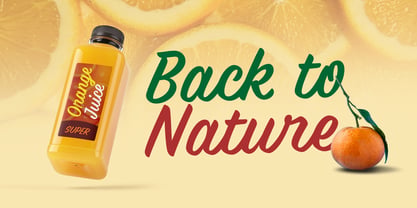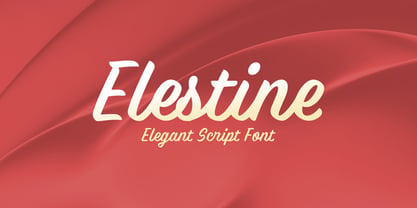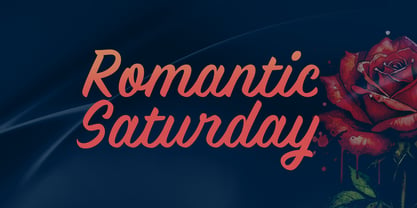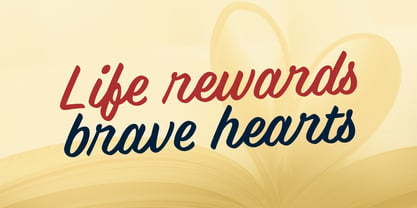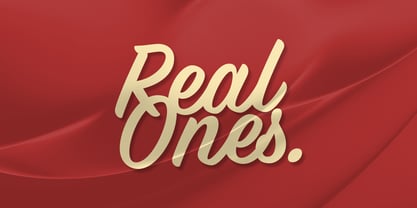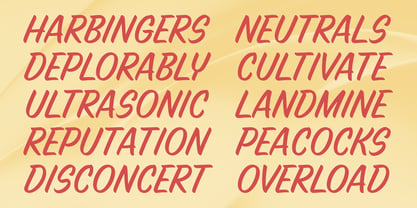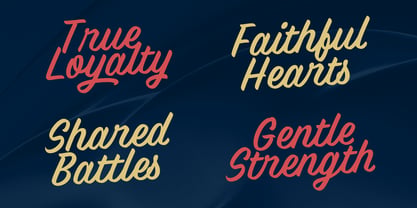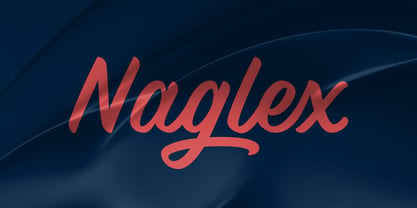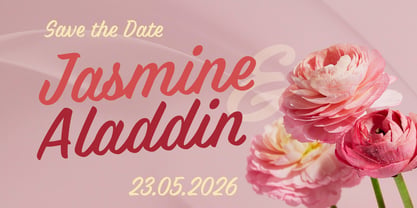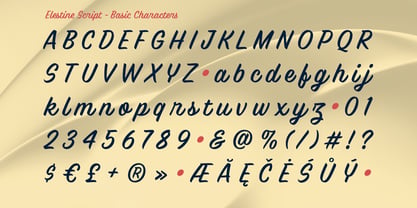
Elestine
by Locomotype
The Elestine Font Family was designed by Arwan Sutanto and published by Locomotype. Elestine contains 1 styles. More about this family
Elestine is an elegant calligraphic script font that embodies grace, beauty, and timeless sophistication. Drawing inspiration from classic calligraphy and refined handwritten forms, it showcases smooth, flowing strokes that impart a natural and luxurious feel. Enhanced with OpenType features, including ligatures and graceful swashes, Elestine empowers designers to craft expressive and refined typography with stunning variations and seamless connections. This font is ideal for branding, logotypes, packaging, posters, wedding invitations, and other premium design projects, adding a distinctive and personal character to every layout.
Designers: Arwan Sutanto
Foundry: Locomotype